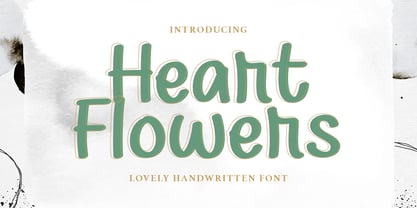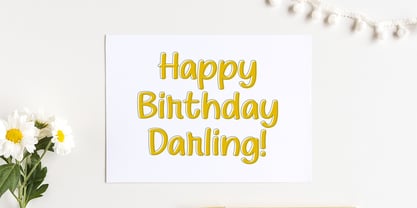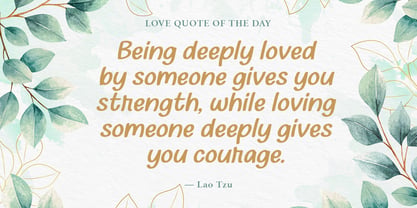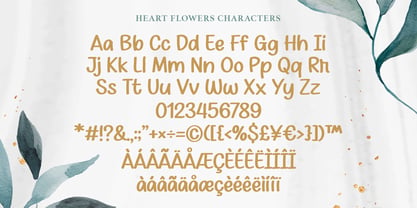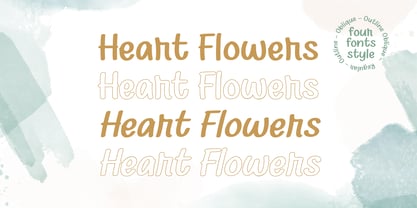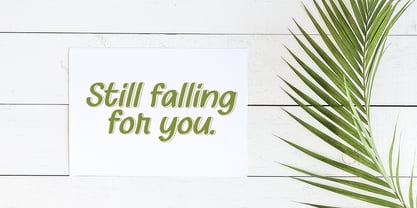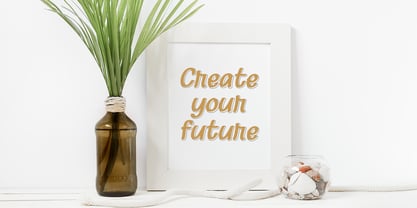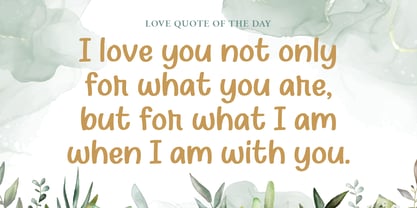
Heart Flowers
by Fargun Studio
The Heart Flowers Font Family was designed by Fajar Gunawan and published by Fargun Studio. Heart Flowers contains 4 styles and family package options. More about this family
Heart Flowers!
A new fresh and modern hand lettered font with decorative characters and a dancing baseline. So beautiful on invitation like handicraft, greeting cards, branding materials, business cards, quotes, posters, and more design concepts.